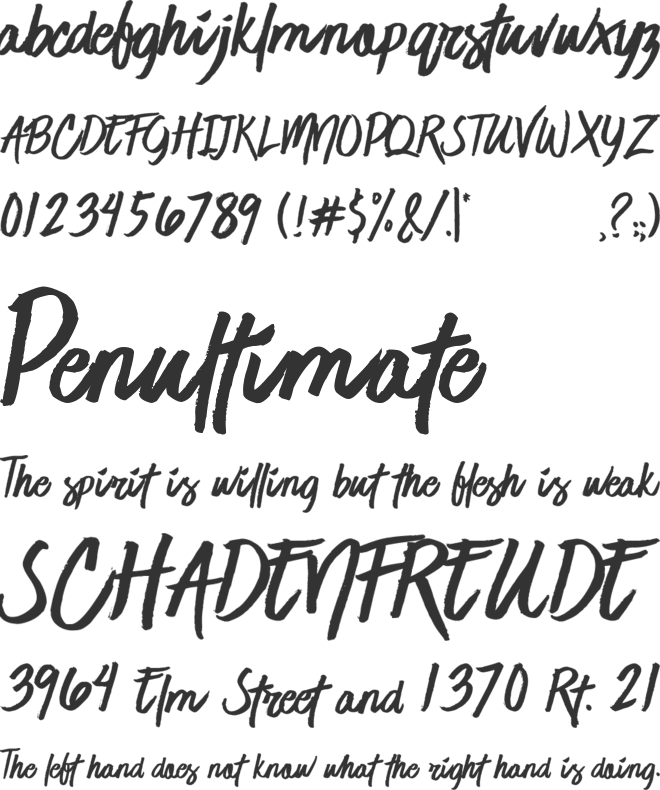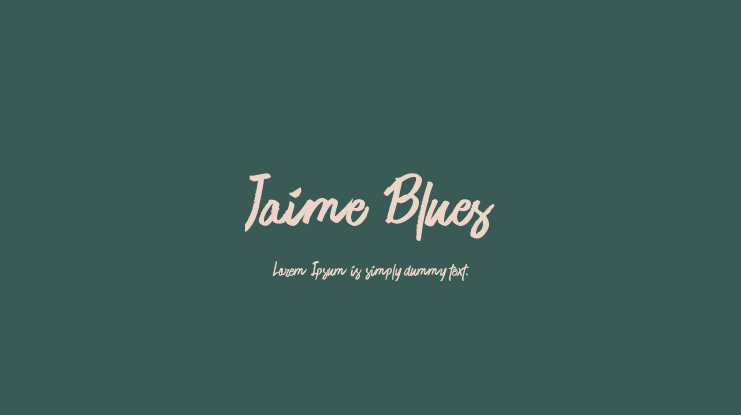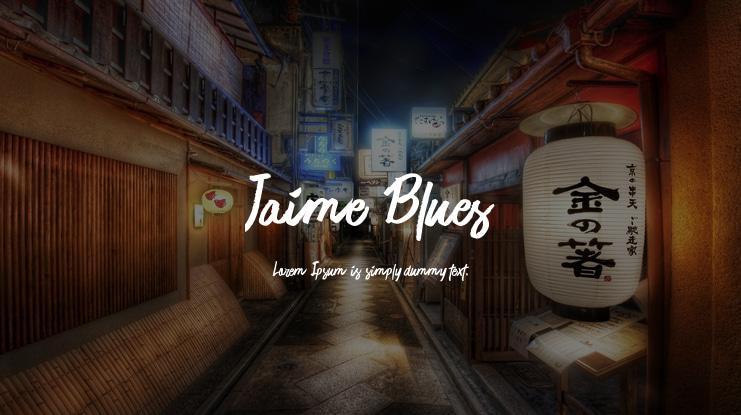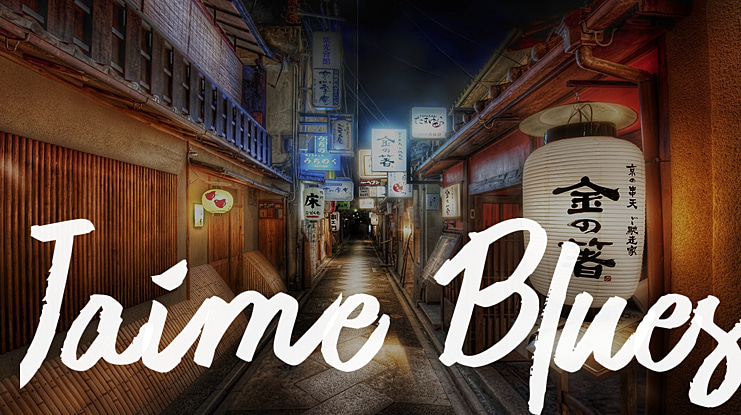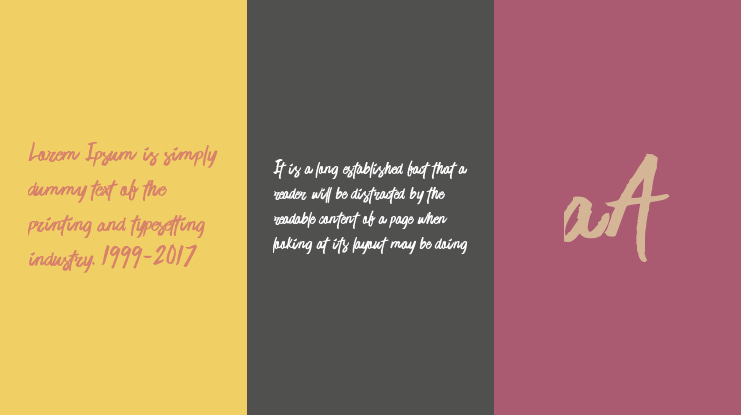
Jaime Blues Font
Jaime Blues!
A cursive font that is not so feminine! This font is perfect for banners, logo design, photography, blog etc.
Jaime Blues font preview
Jaime Blues Regular font